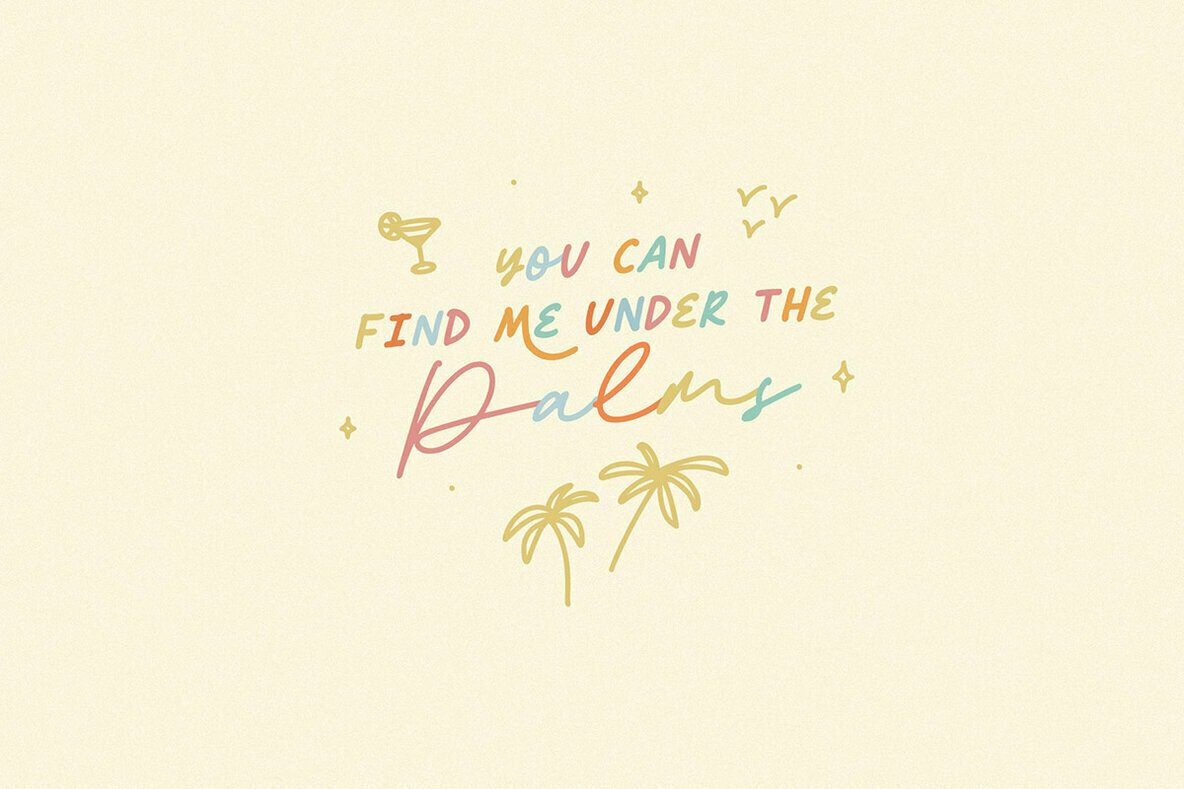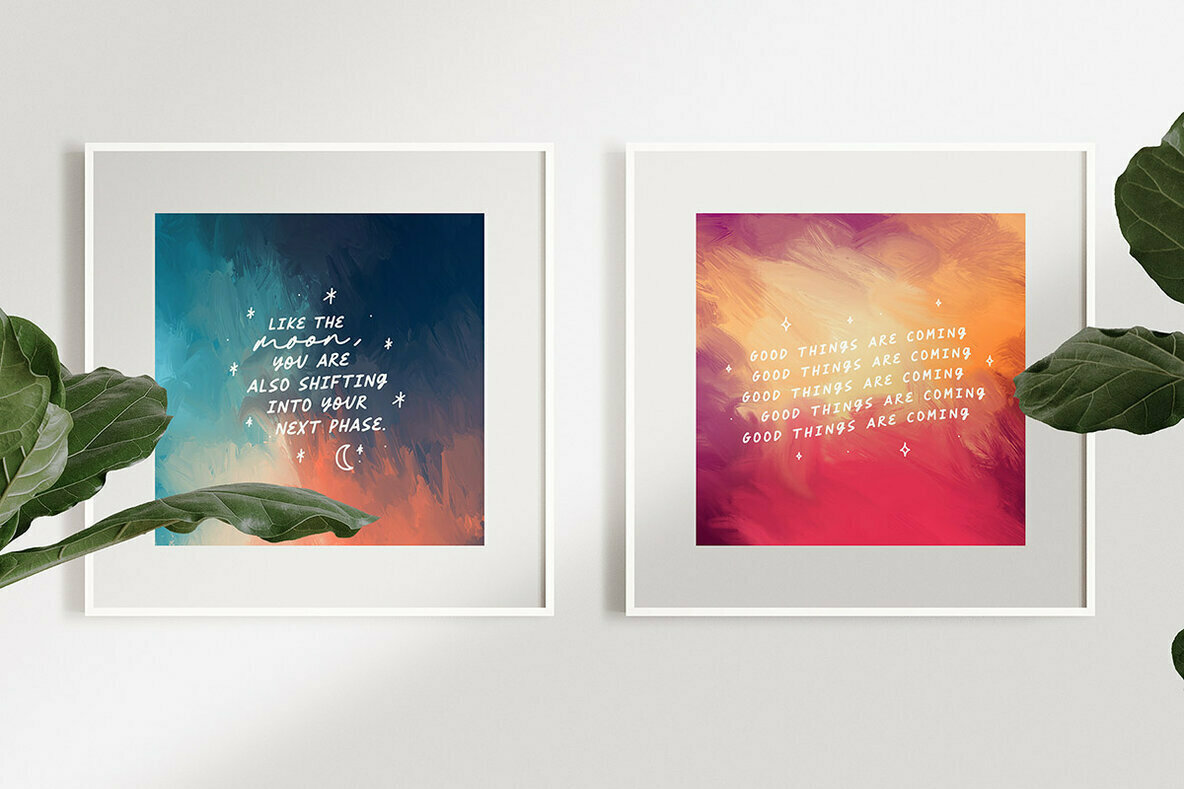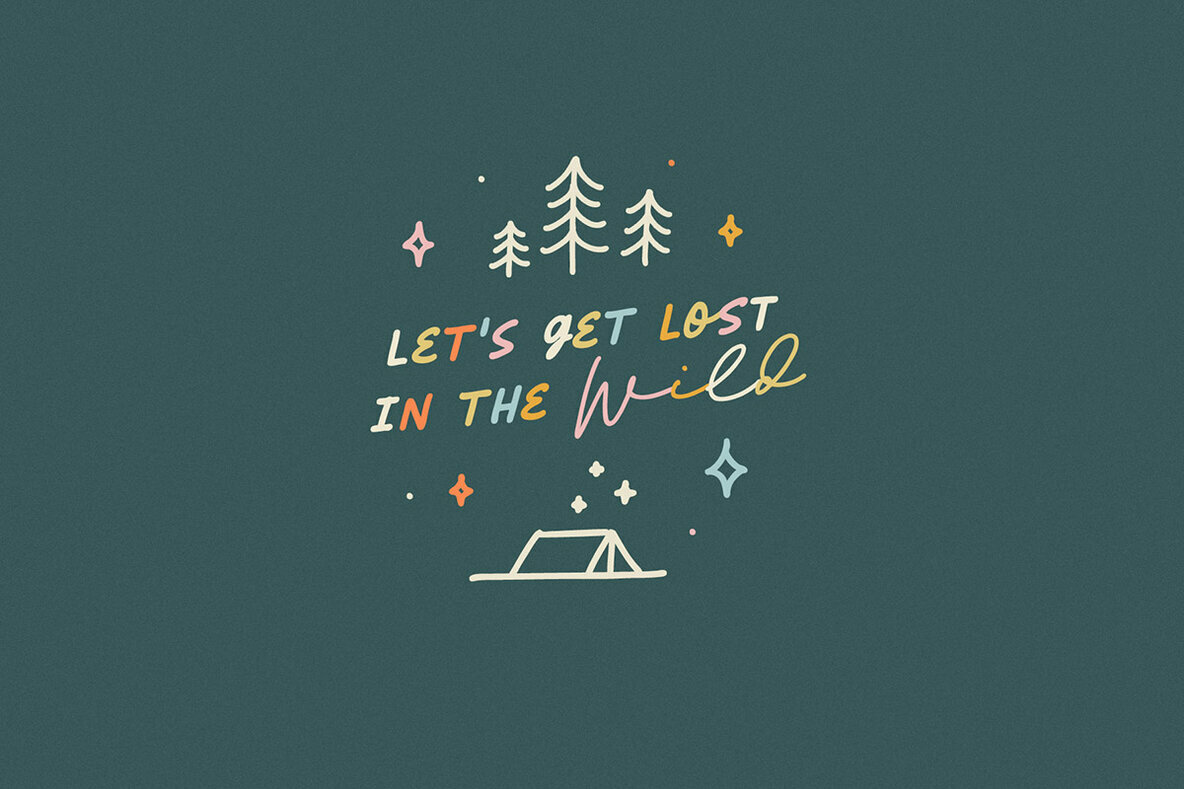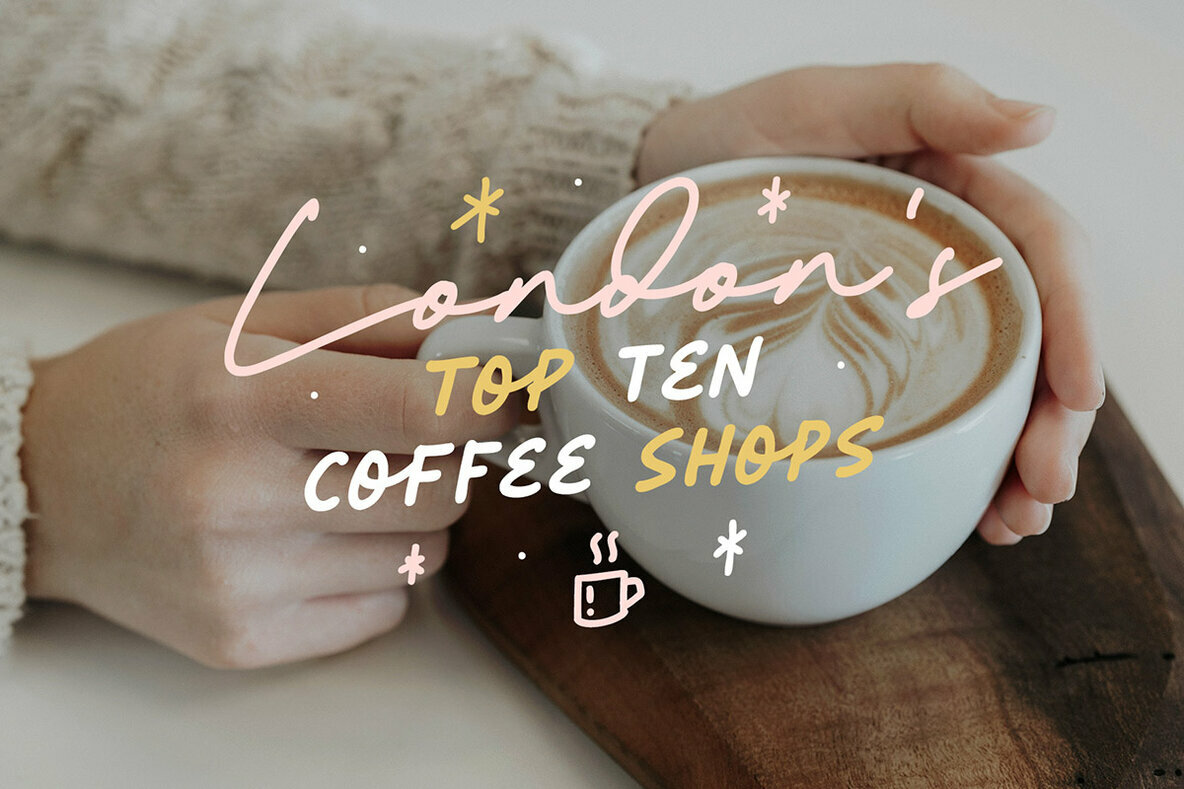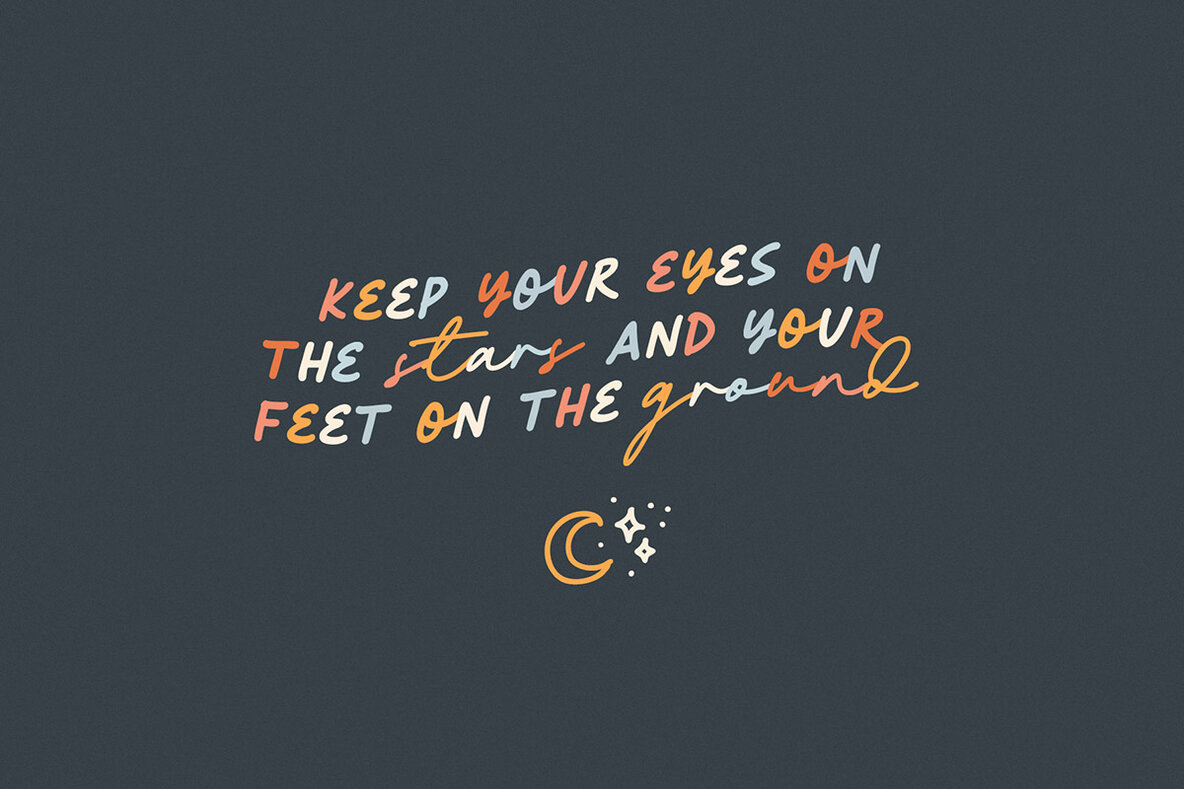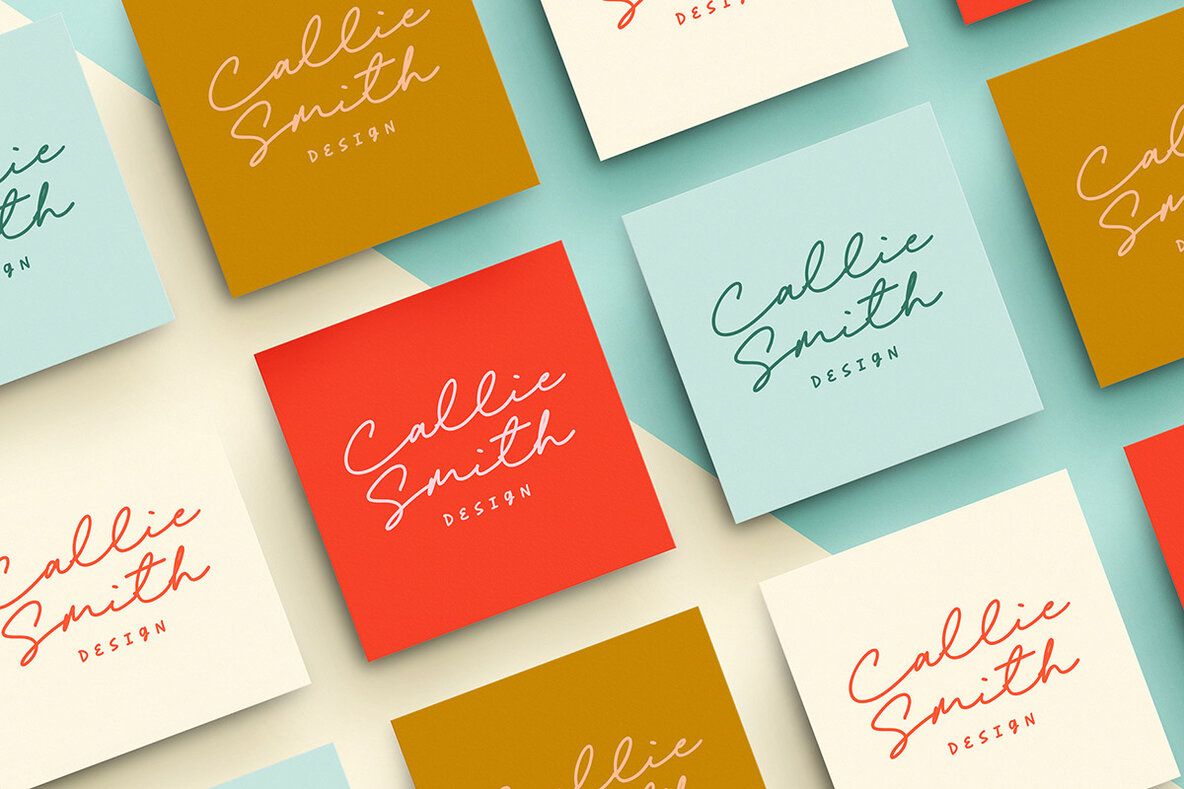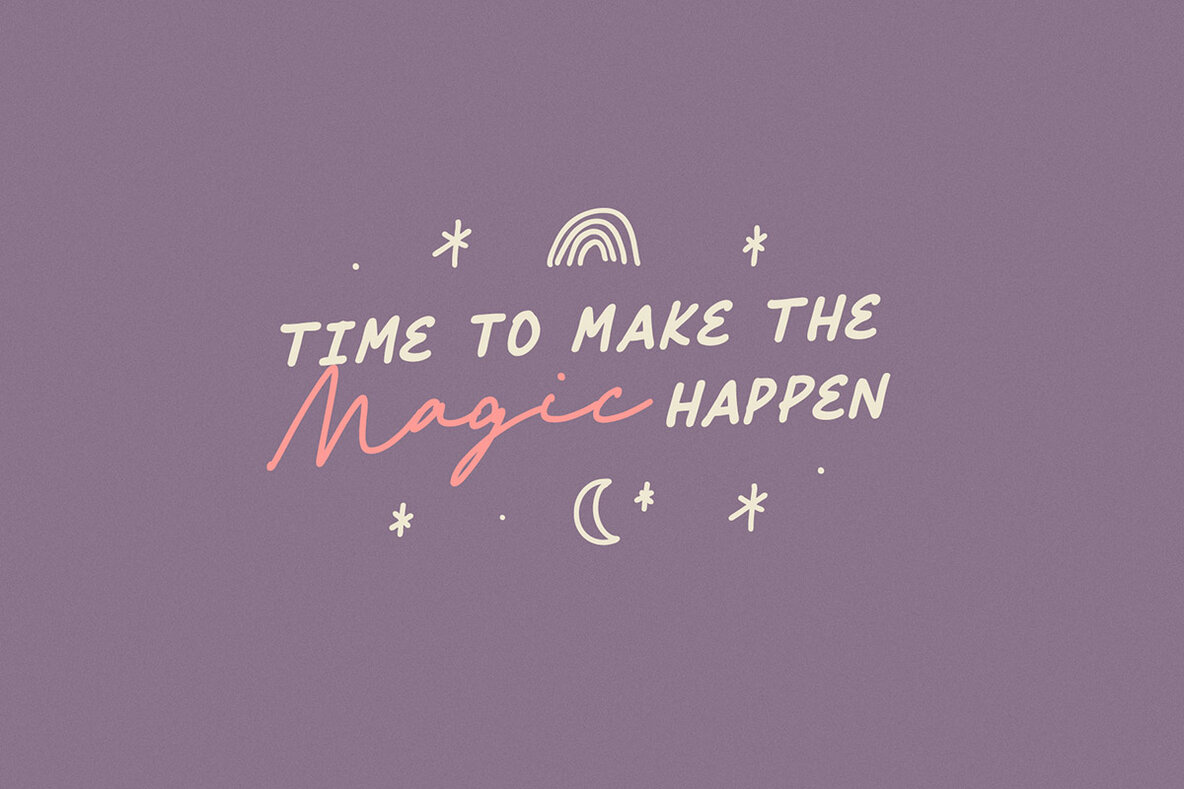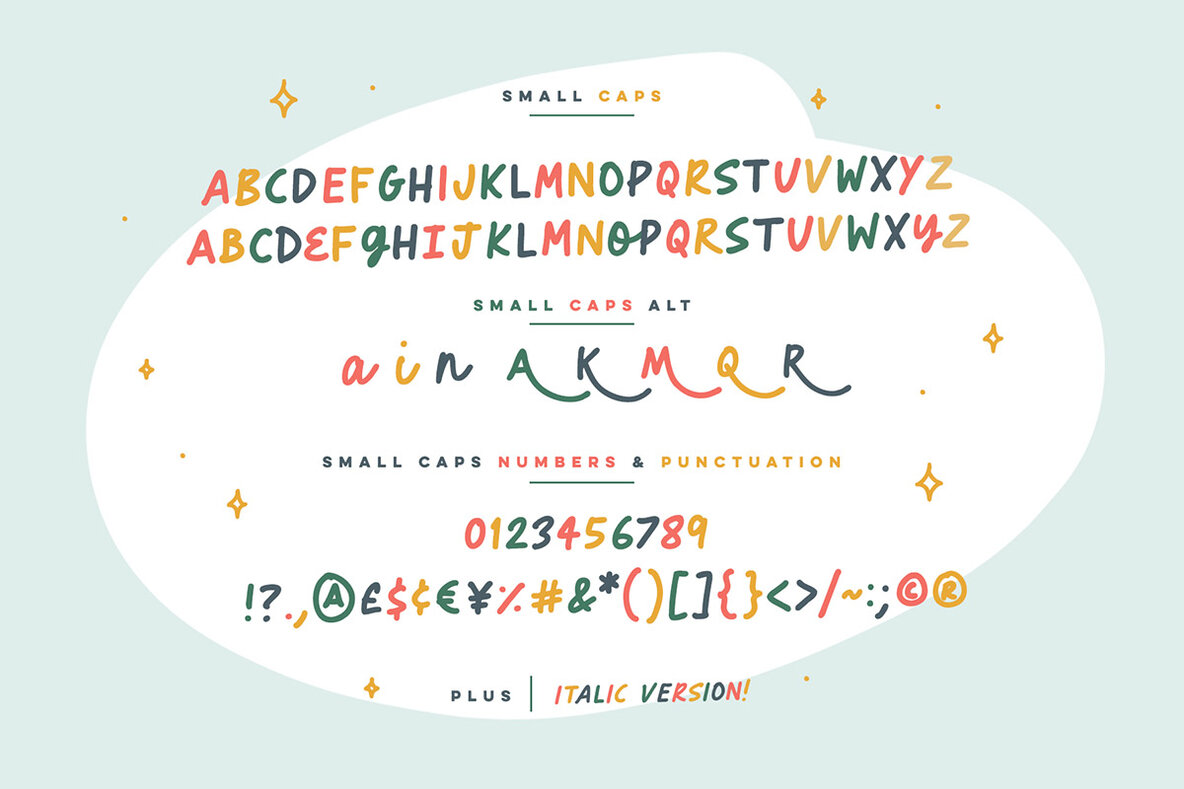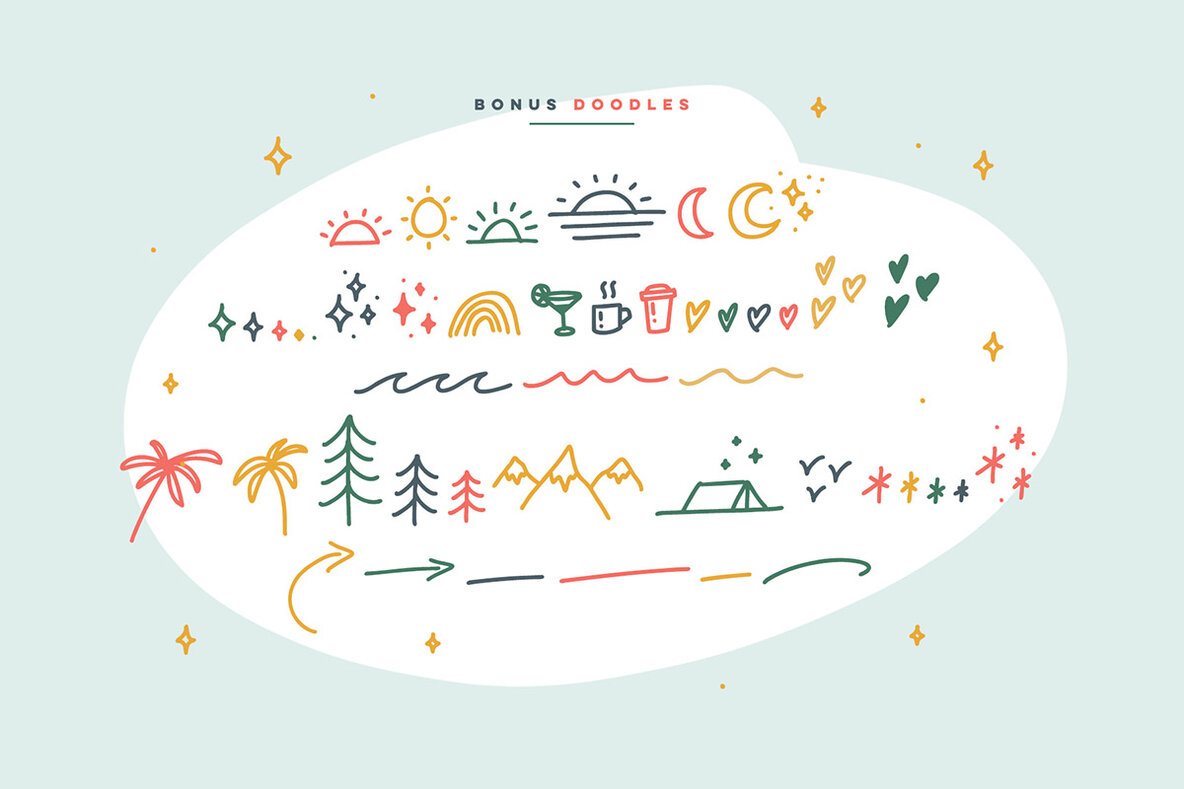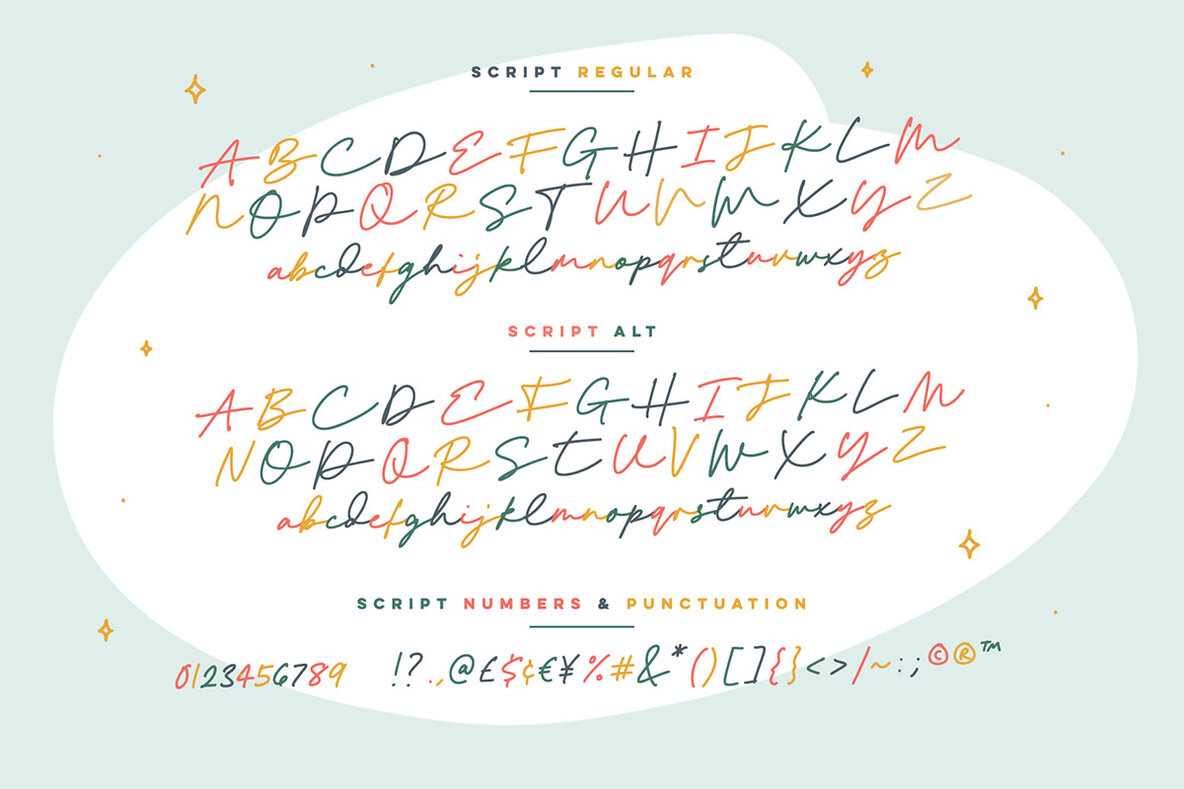
Mellow Morning Font
Inject some irresistible fun into your designs with the Mellow Morning Font Duo! This playful font duo consists of a fast flowing signature script, and a charming small caps font as the perfect companion. But that's not all - also included is a bonus doodle font containing 45 hand-drawn doodles - designed to add an eye catching, hand-made appeal to your Mellow Morning fonts.
Mellow Morning Script • A clean, free-flowing handwritten signature font containing upper & lowercase characters, numerals, and a large range of punctuation.
Mellow Morning Script Alt • This is a second version of Mellow Morning Script, with a completely new set of both upper and lowercase characters. If you wanted to avoid letters looking the same each time to recreate a custom-made style, or try a different word shape, simply switch to this font for an additional layout option.
Mellow Morning Small Caps • A clean, charming handwritten all-caps font. Contains 2 sets of a-z letters, simply switch between upper and lowercase to toggle between both sets. Also includes 8 stylized letters for extra flair, accessible via a Glyphs panel or by switching on Stylistic Alternates.
Mellow Morning Small Caps Italic • An italicized version of Mellow Morning Small Caps, which can be used for a more fast-hand flow to your text.
Mellow Morning Doodles • A set of 45 doodles designed to pair with the Script & Small Caps fonts. Simply install this as it's own font, and type any A-Z or a-s character to generate each doodle.